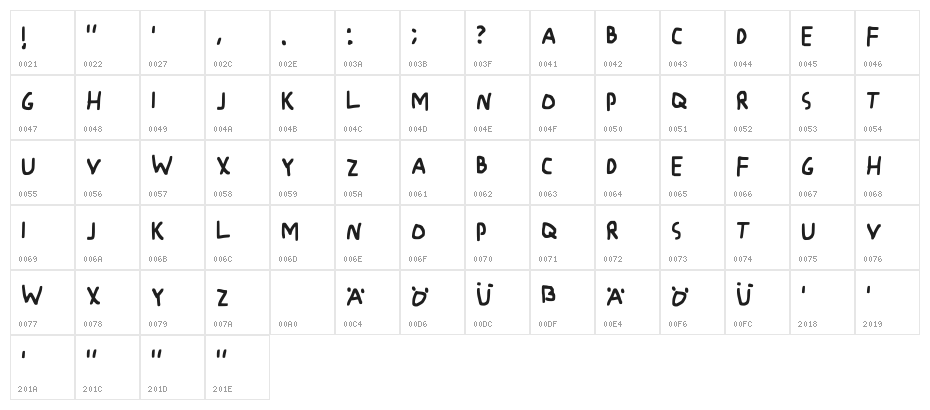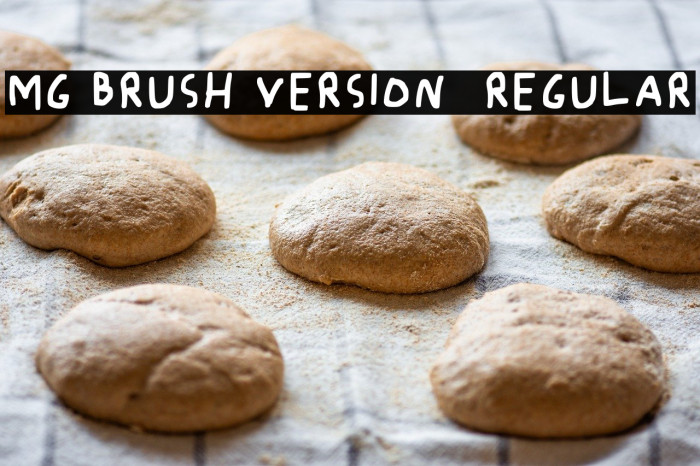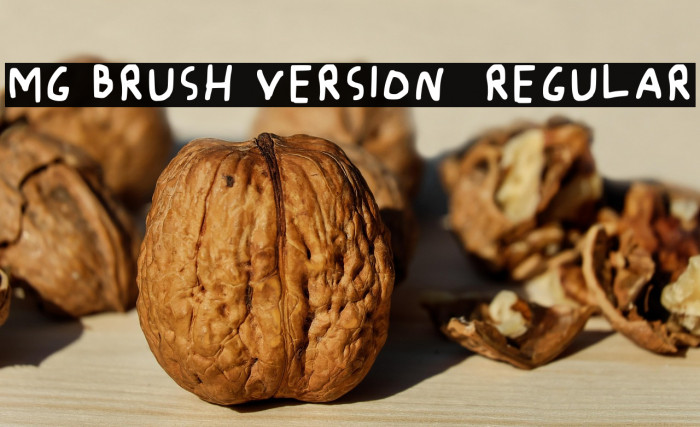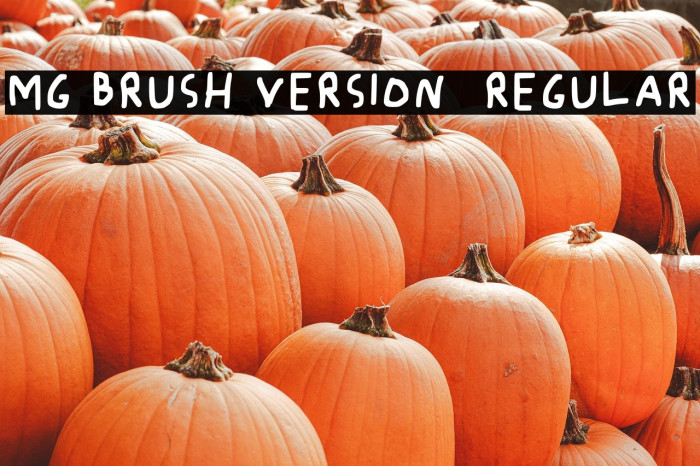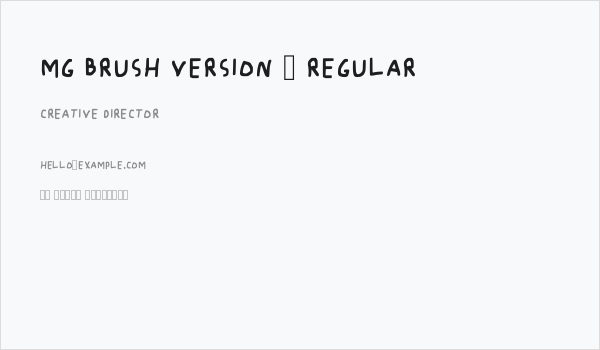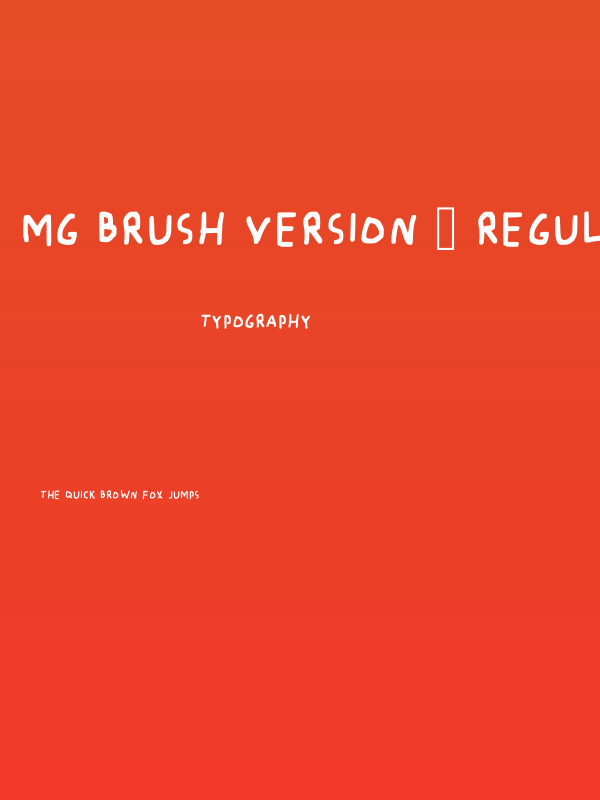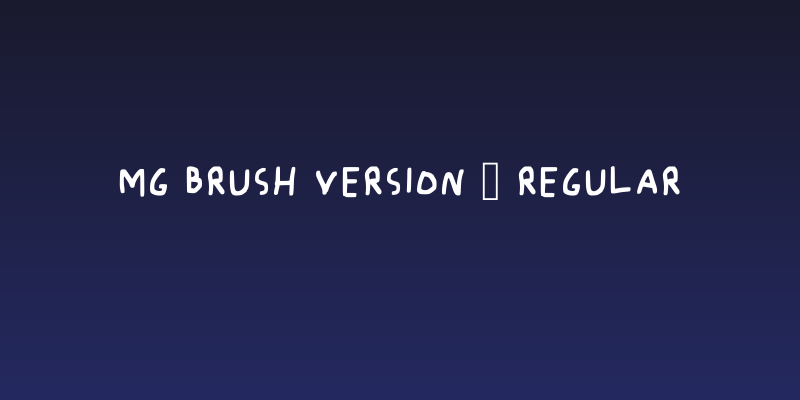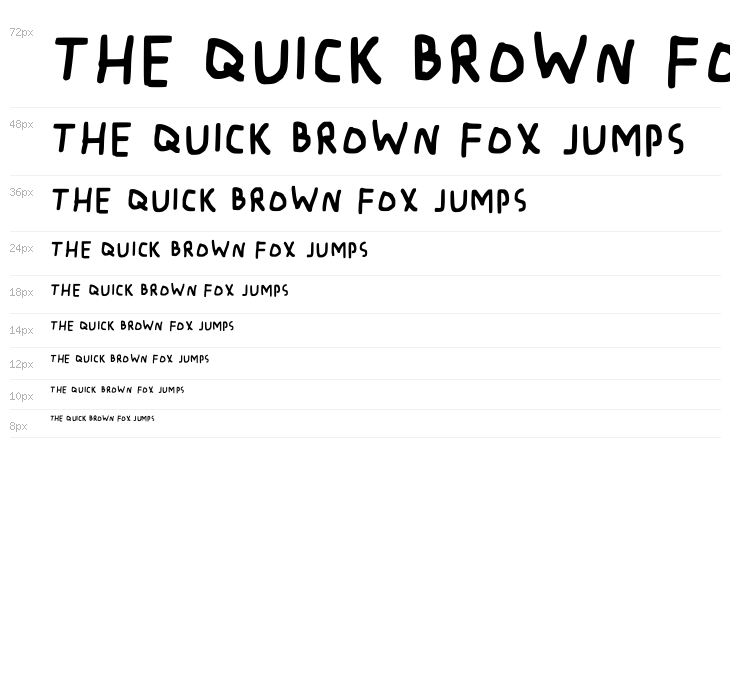
Mg Brush Version 2 Regular Font
Mg Brush Version 2 Regular Description
This font features a playful and casual handwritten style, characterized by its bold and slightly irregular strokes that mimic the look of a brush or marker. The letters have a consistent thickness, giving it a uniform appearance despite the informal style. The uppercase and lowercase letters maintain a cohesive look, with rounded edges and a slight slant that adds to its dynamic feel. The numerals and special characters are designed to match the overall aesthetic, ensuring a harmonious look across all text. This font is ideal for projects that require a personal touch, such as invitations, greeting cards, or creative branding.
| Proposed Projects | Ideal for invitations, greeting cards, creative branding, and casual posters. |